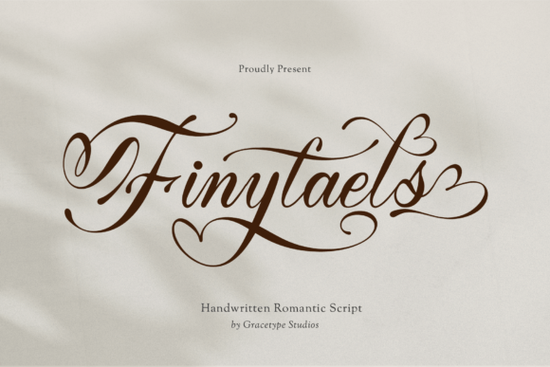
Finytaels Font is a standout choice for anyone looking to add a touch of elegance and romance to their design projects. Whether you're working on wedding invitations, branding materials, or social media content, this font brings a unique blend of fluidity and sophistication that can elevate your creative work. Its flowing cursive style and intricate details make it ideal for designers who want to convey a sense of luxury and artistry.
Designed with a focus on calligraphic elements, Finytaels features sweeping strokes and delicate swashes that give it a handcrafted feel. The font’s low-dipping loop on the lowercase "y" adds a dramatic flair, making it perfect for high-impact designs. Its elegant baseline and smooth script lines ensure readability while maintaining a poetic aesthetic. This makes it a go-to option for independent cosmetic brands, floral studios, and boutique fragrance packaging.
If you're searching for a font that combines traditional calligraphy with modern design sensibilities, Finytaels is worth exploring. It offers versatility across different mediums, from print to digital platforms. For those interested in similar styles, you might also consider Bitrank Font, Teachers Chalk Font, or Honesty Font. Each has its own unique charm and application.
One of the key strengths of Finytaels is its ability to adapt to various design needs without losing its character. Whether you're creating custom wedding stationery or crafting a logo for a premium brand, this font provides the right balance of style and functionality. Its heart-shaped swashes and looping flourishes add a personal touch that can make your work stand out.
For designers who appreciate the beauty of handwritten typography, Finytaels offers a fresh alternative to more rigid typefaces. It works well in both large and small text sizes, ensuring that your message remains clear and visually appealing. The font's structure allows for easy integration into different layouts, making it a practical choice for a wide range of projects.
When it comes to using Finytaels in your designs, consider the context and audience. For instance, if you're creating content for a romantic lifestyle brand, the font’s soft curves and elegant lines will complement the theme. If you're designing for a luxury event, the font’s dramatic elements can enhance the overall visual impact. Experimenting with different color schemes and backgrounds can also help highlight the font's unique qualities.
As with any font, it's important to test Finytaels in real-world scenarios to see how it performs. Try using it in various design formats such as banners, posters, or social media graphics to determine its effectiveness. You may also want to explore other fonts like Bedtime Font or Finytaels Font to find the best fit for your specific needs.
Whether you're a professional designer or a creative hobbyist, incorporating Finytaels into your workflow can add a new dimension to your work. Its fluidity and elegance make it a valuable tool for anyone looking to express creativity through typography. As you continue to explore different fonts, keep in mind the specific needs of your projects and how each typeface can contribute to the overall message and aesthetic.
Before finalizing your design, take a moment to review how the font looks in different contexts. Ensure that it aligns with your brand identity and communicates the intended emotion. By carefully selecting and applying fonts like Finytaels, you can create designs that are not only visually appealing but also meaningful and impactful.
Consider experimenting with Finytaels in your next project to see how it enhances your creative vision. With its unique characteristics and versatile applications, this font has the potential to become a staple in your design toolkit. Keep an open mind and let your creativity guide you as you explore the possibilities of this beautiful typeface.